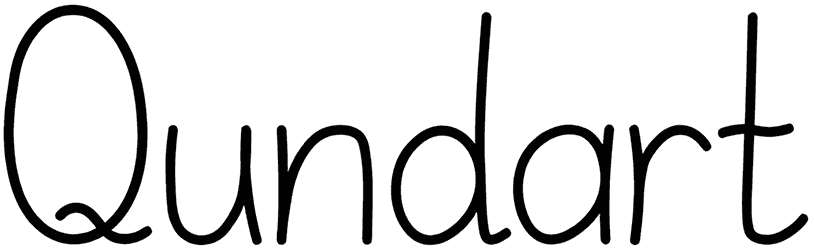
Qundart Font
Qundart is a basic handwritten font that may add a personal touch to your digital projects and help you stand out from the crowd. Using this thin font in your presentation can add a warm, welcoming vibe.
This font is perfect for use in all sorts of kid-oriented media, from books and banners to posters. You can find more fonts like this in our online catalog if you are ready to take a chance and give it a try.
Qundart – simple handwritten font. Can be used in postcards, greetings, promotional banners. The font is cute and lightweight. Composition: Latin and Cyrillic.